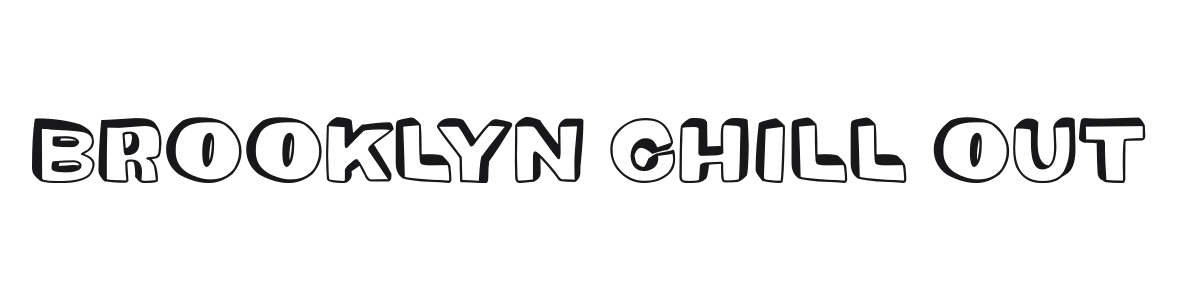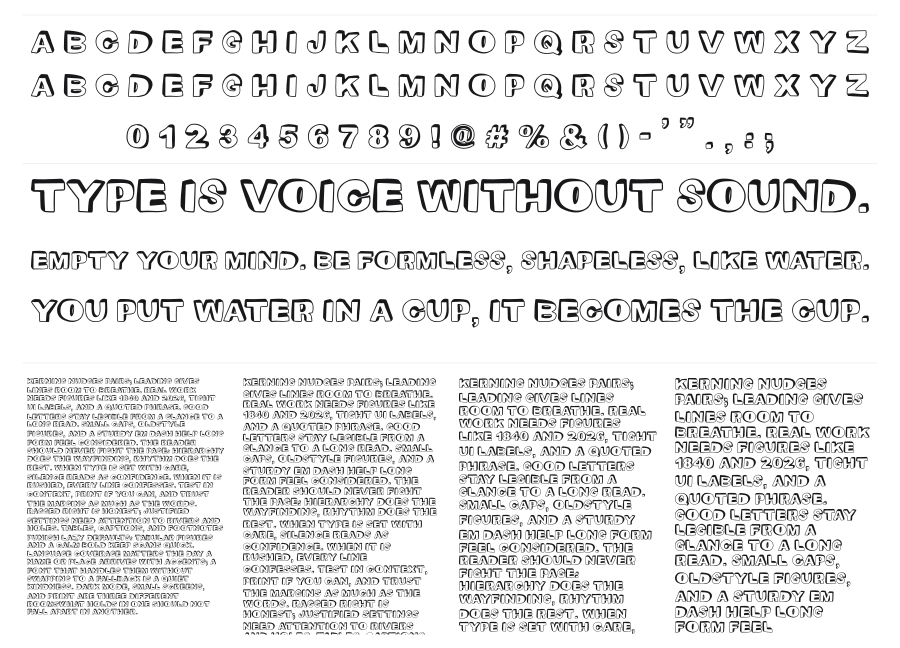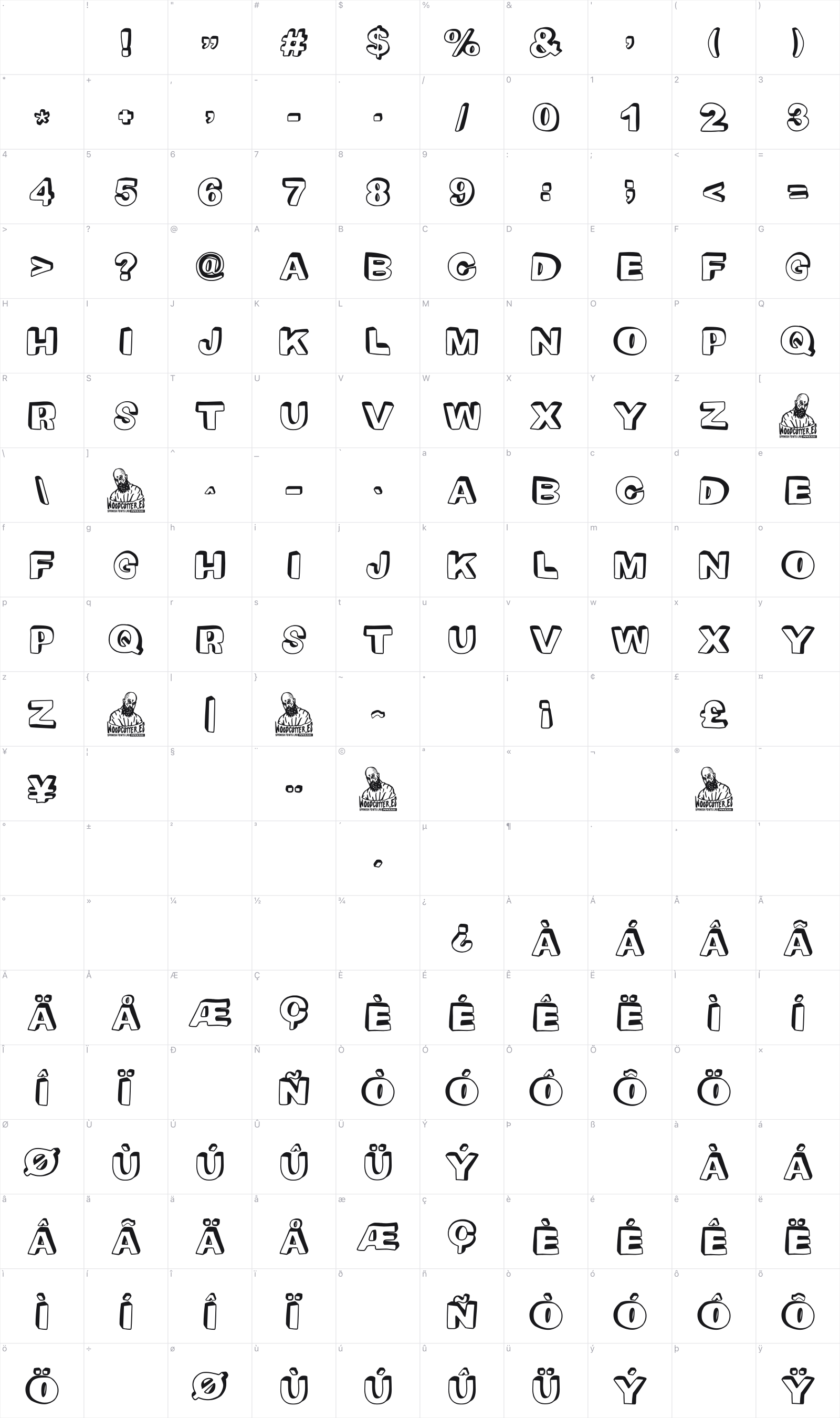
Brooklyn Chill Out
Brooklyn Chill Out is a heavy rounded display font with a bold inline outline effect that gives each letter a chunky, carved-out look. The slightly irregular, bumpy contours keep it feeling hand-made and loose rather than mechanically polished. It carries strong street and comic energy, built for titles, posters, and anywhere that needs a bold casual punch.